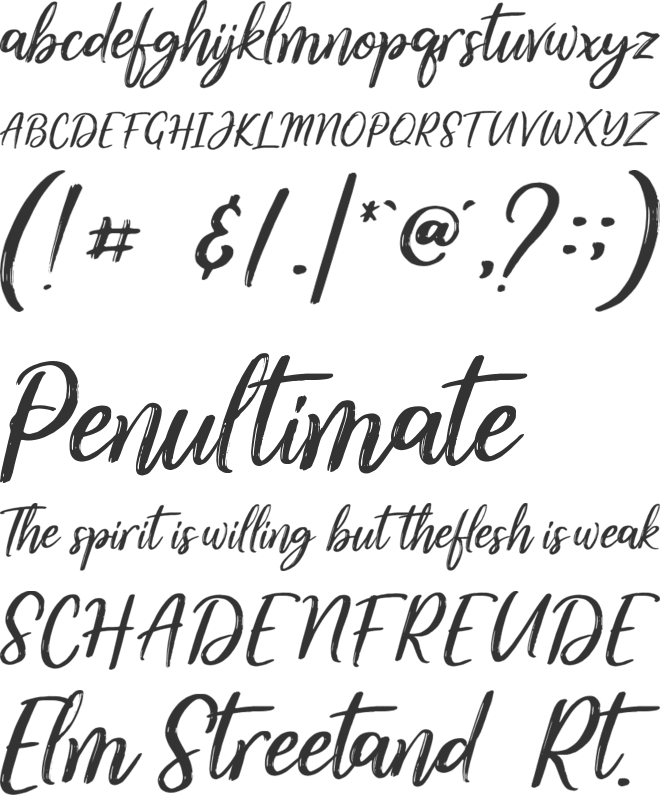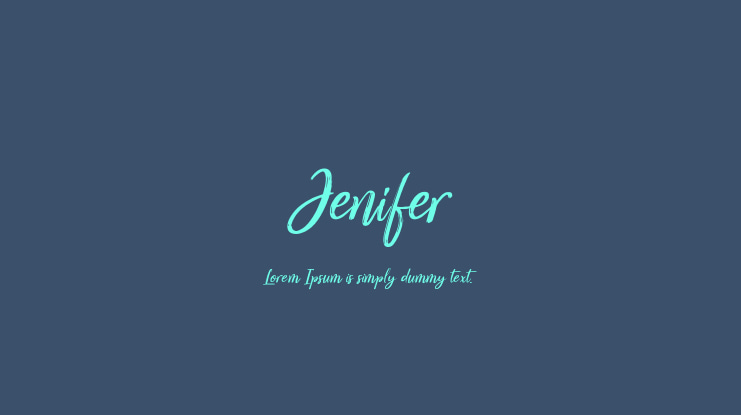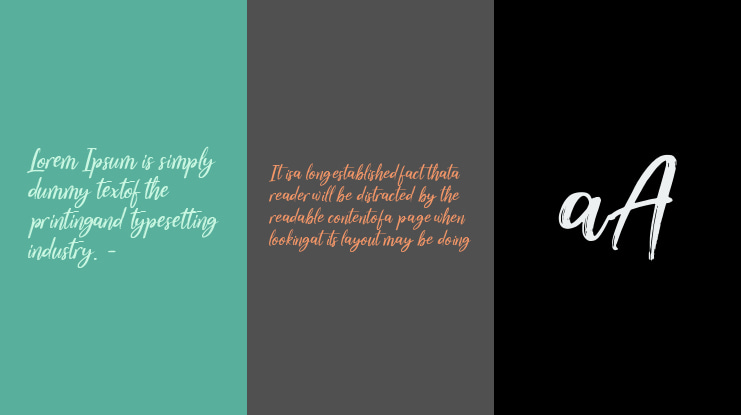
Jenifer Font
Hi everyone,,, Introducing new my font is "JENIFER". With texture touch and beautiful calligraphy make this font perfect to make a branding, magazine, fashion, quotes, logo, and other. This font also equipped with swoosh to enhance its appearance.